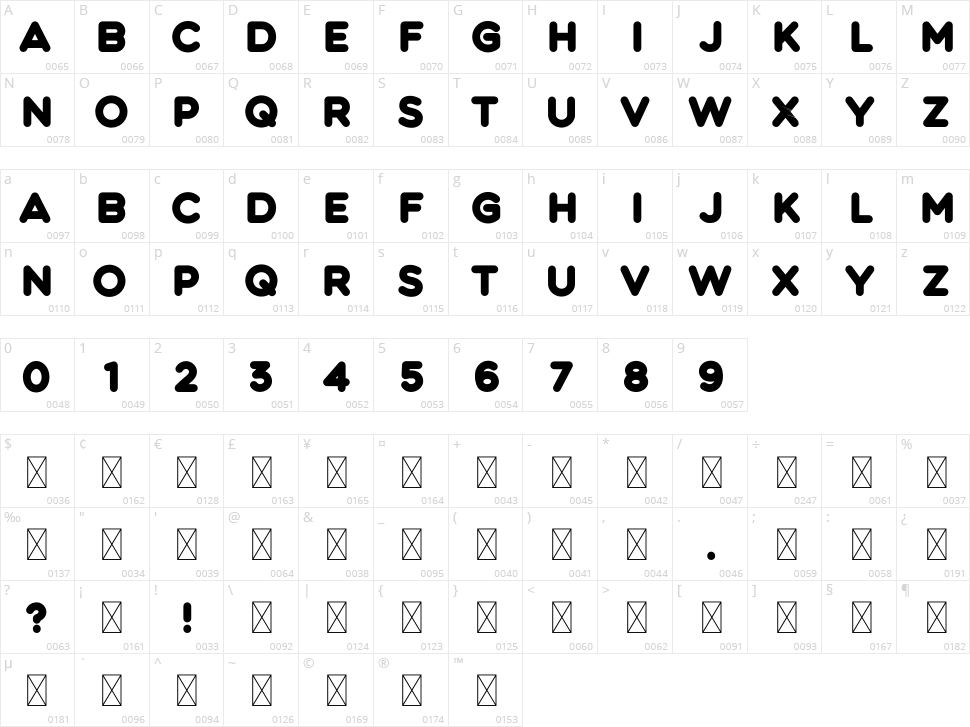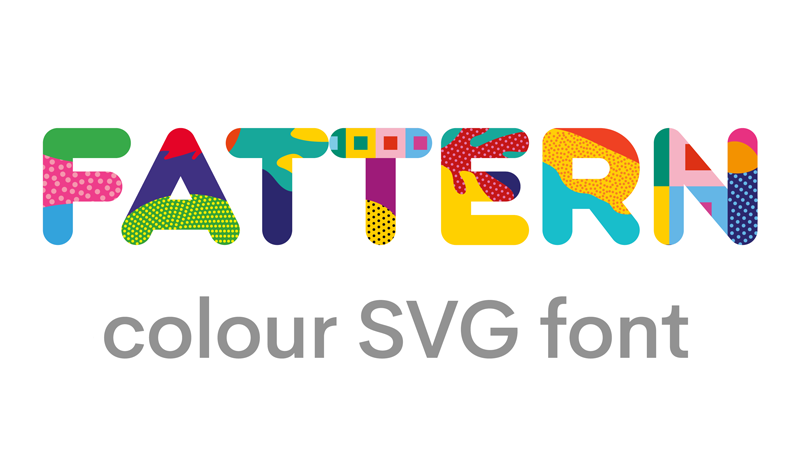
Fattern
Fattern is another of my SVG colour fonts. It supports limited Latin charset so it's not too heavy on your computer. NOTE: To use colour fonts you need Adobe Illustrator, Indesign or Photoshop versions CC2018 or higher. The preview of the font here on Dafont.com will be monochromatic - so take a look at the samples.